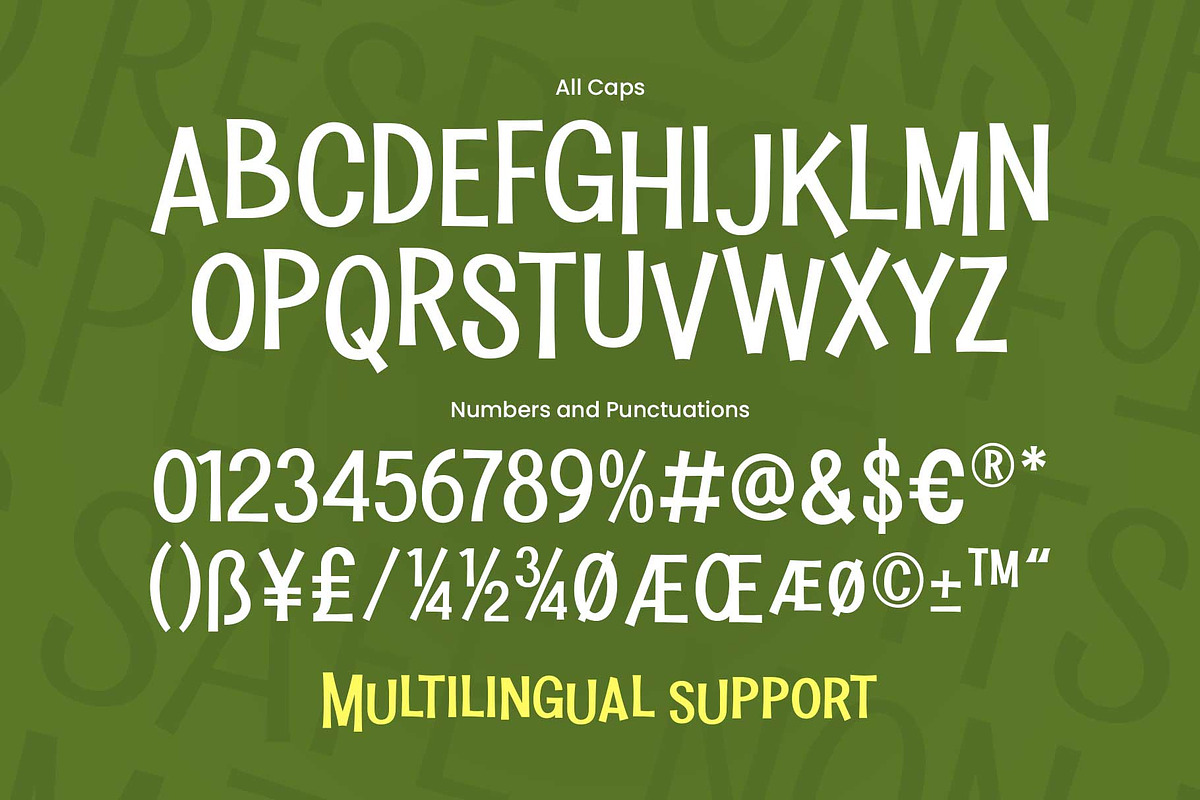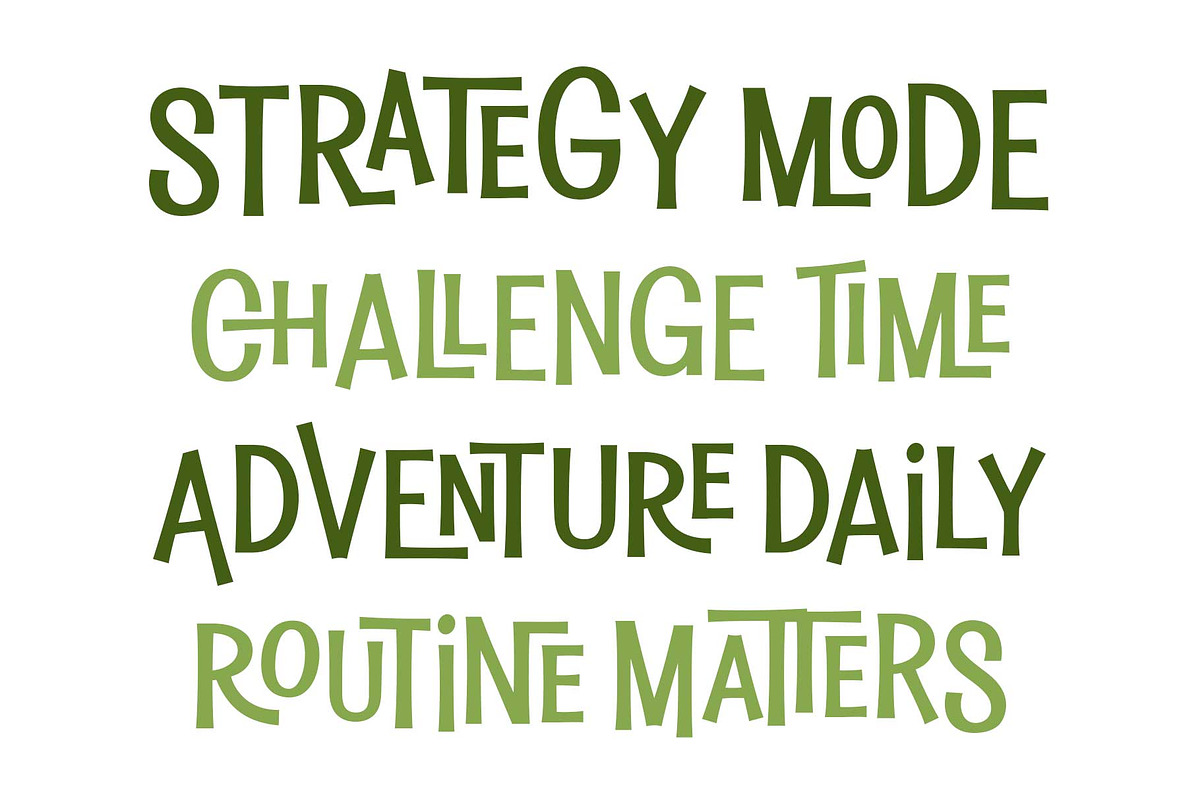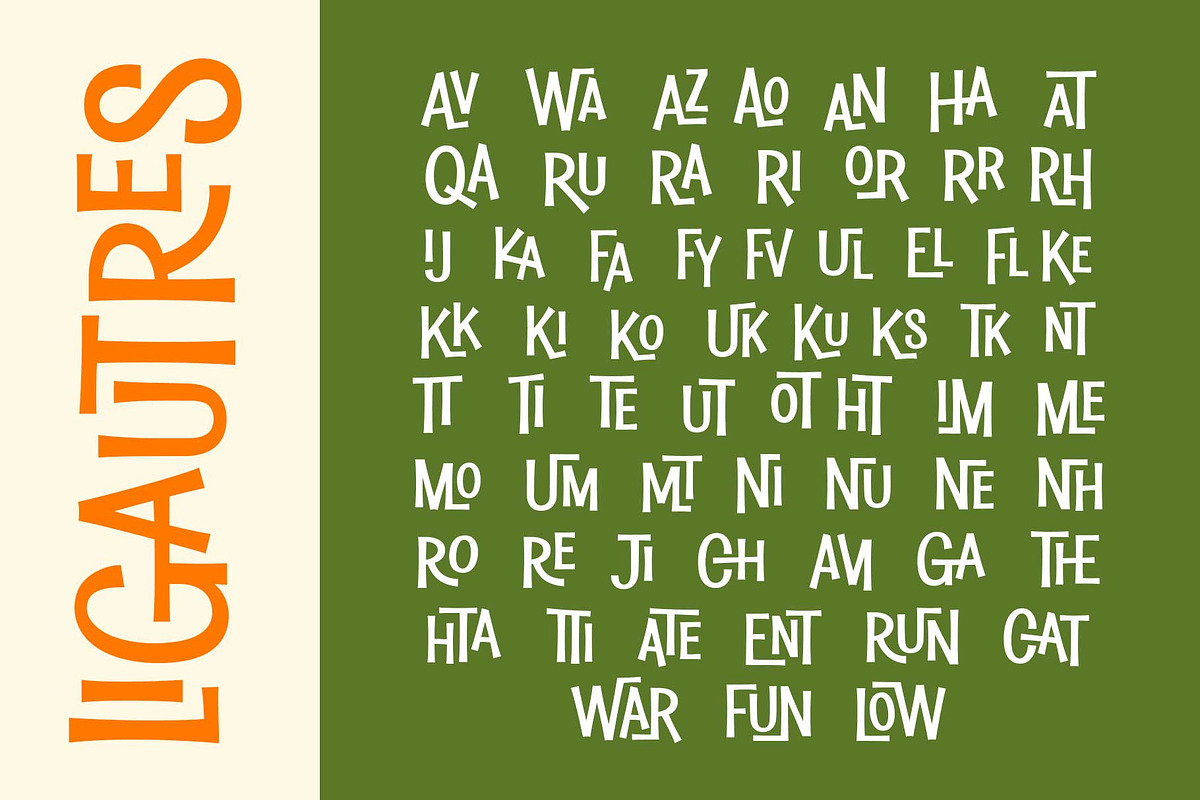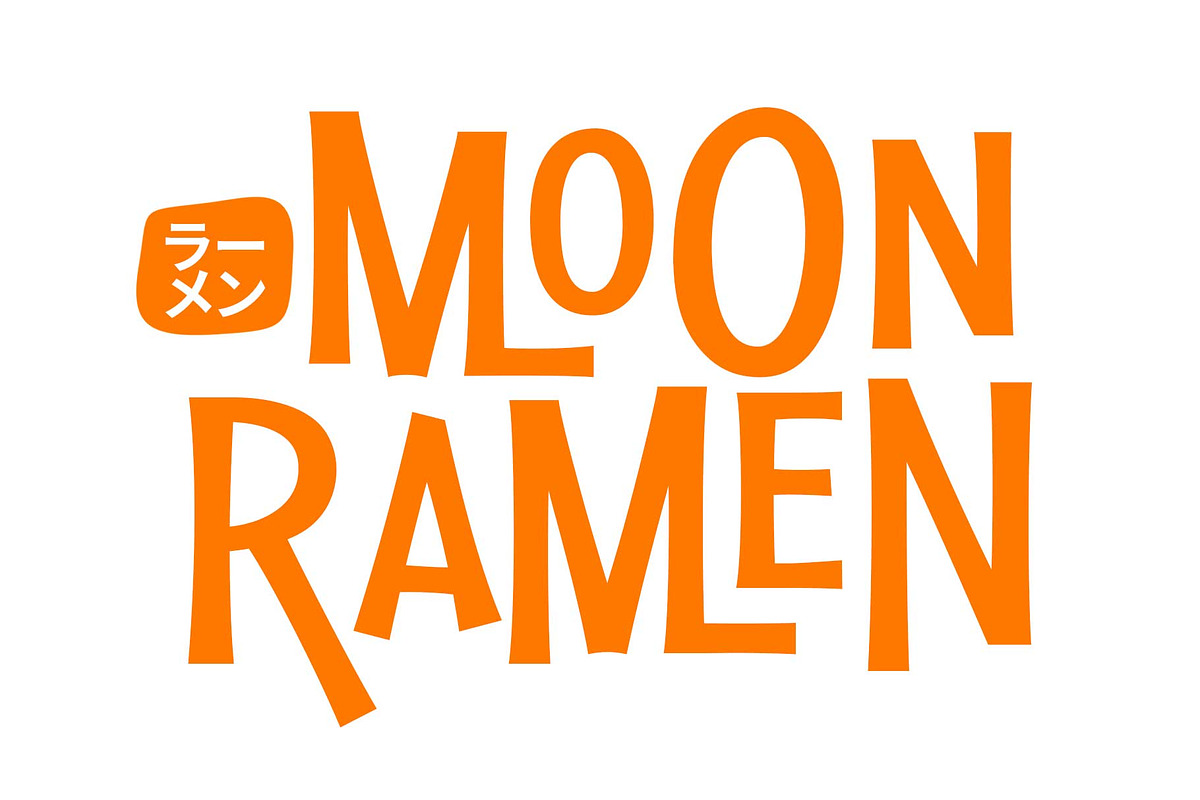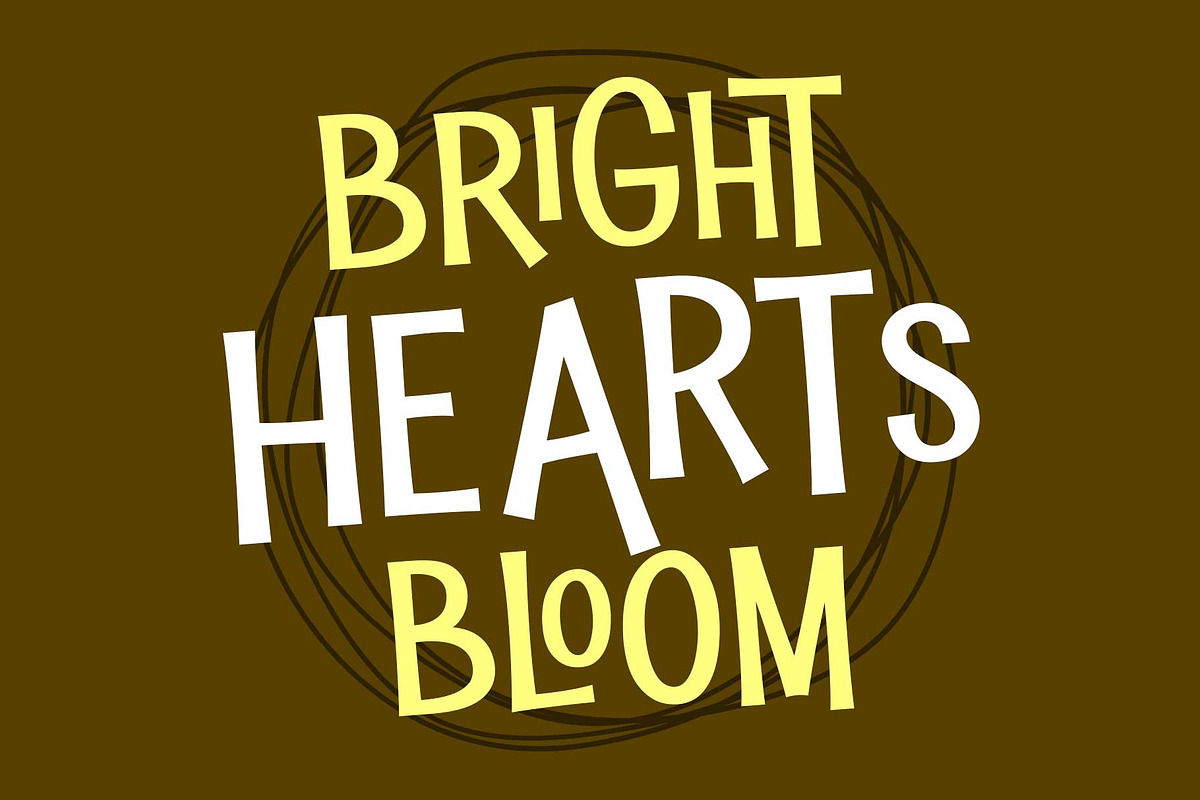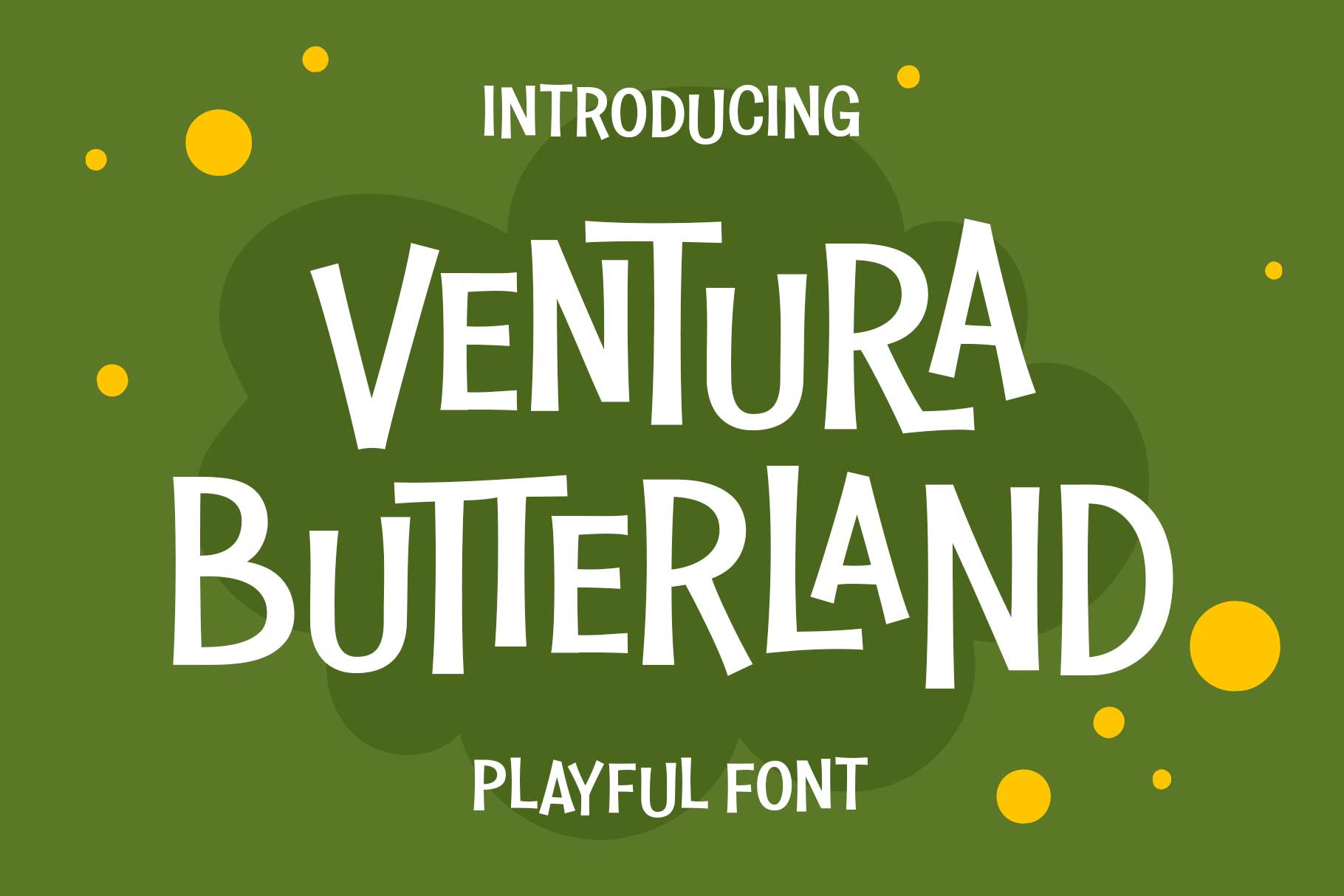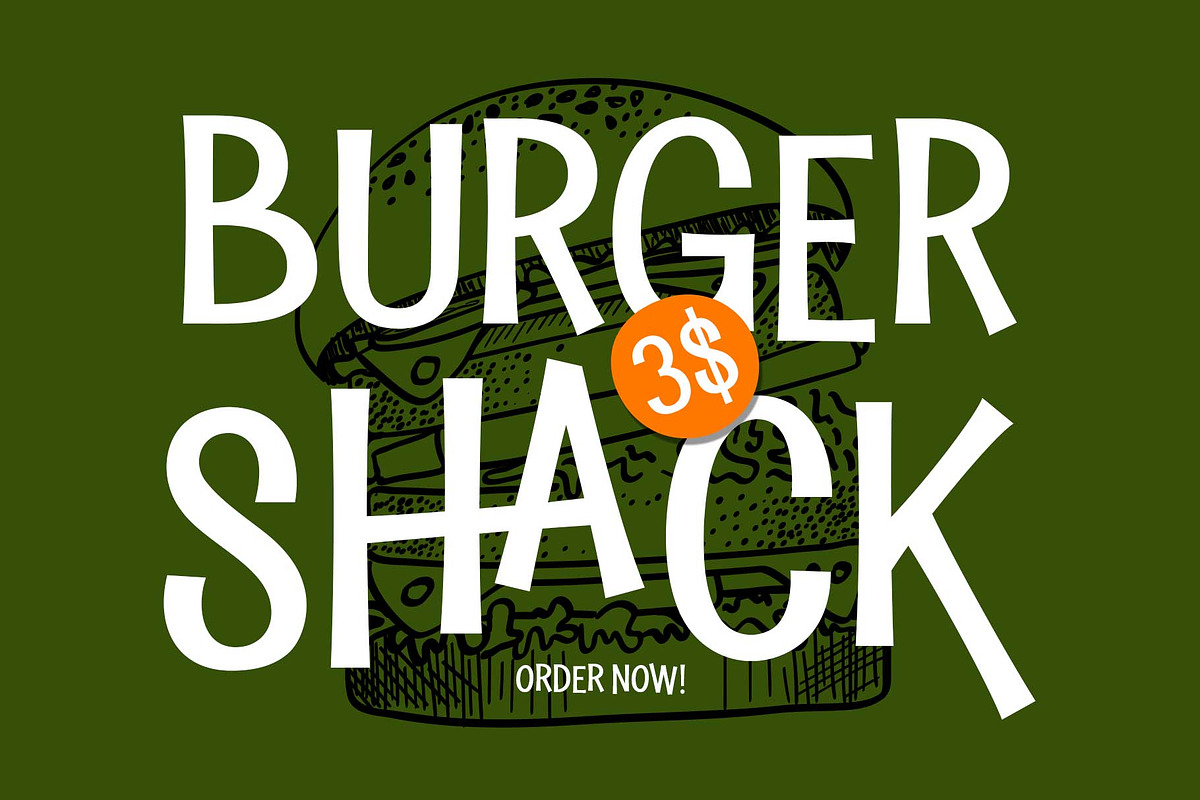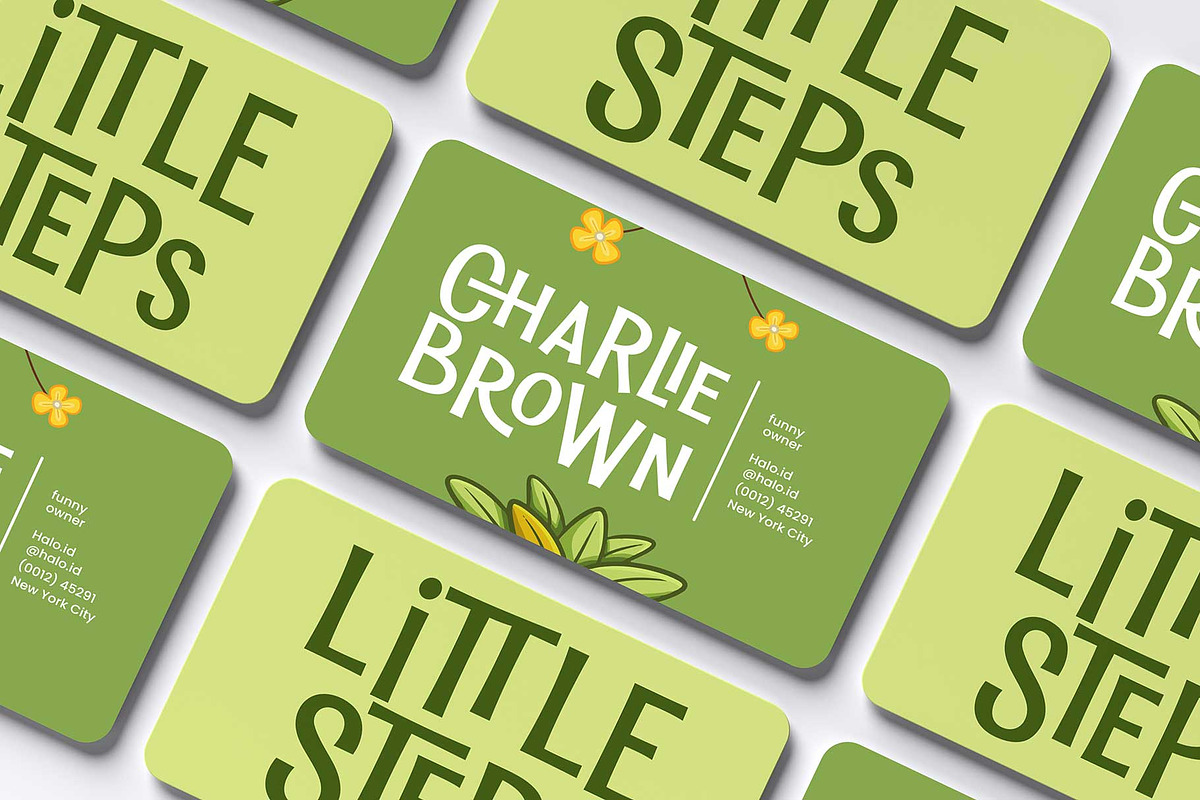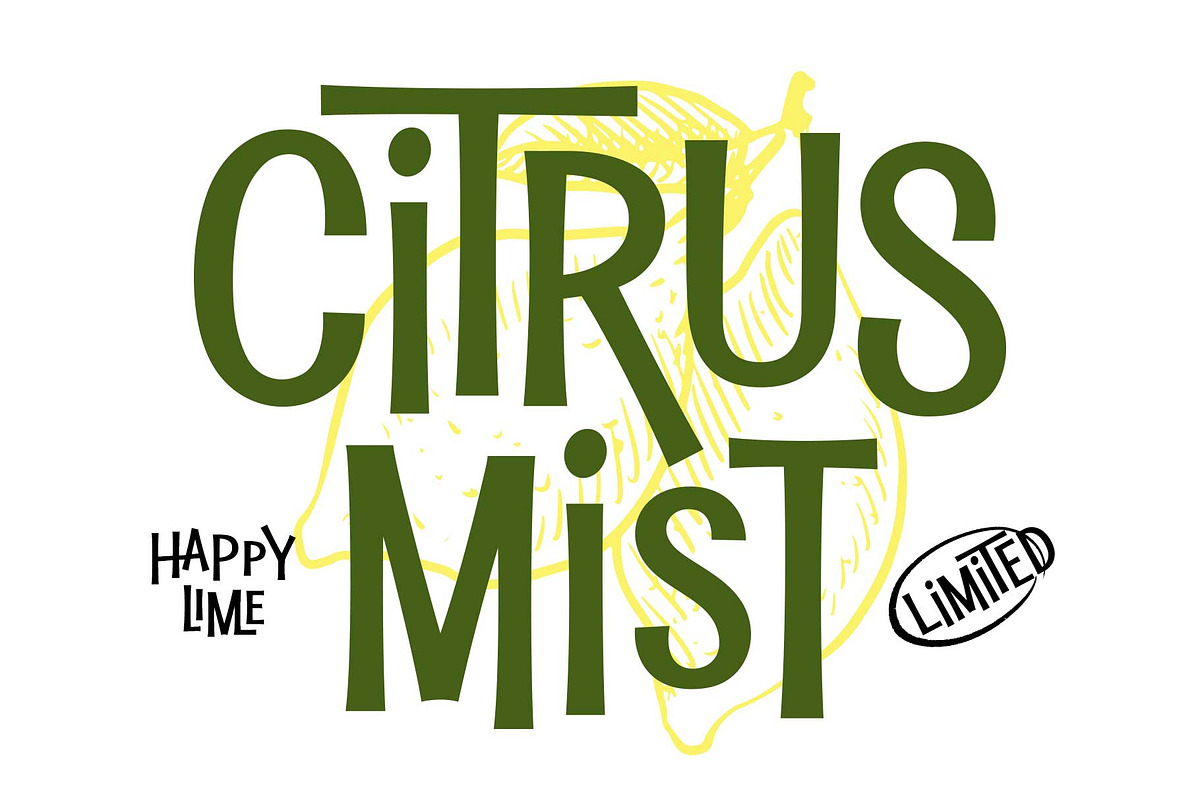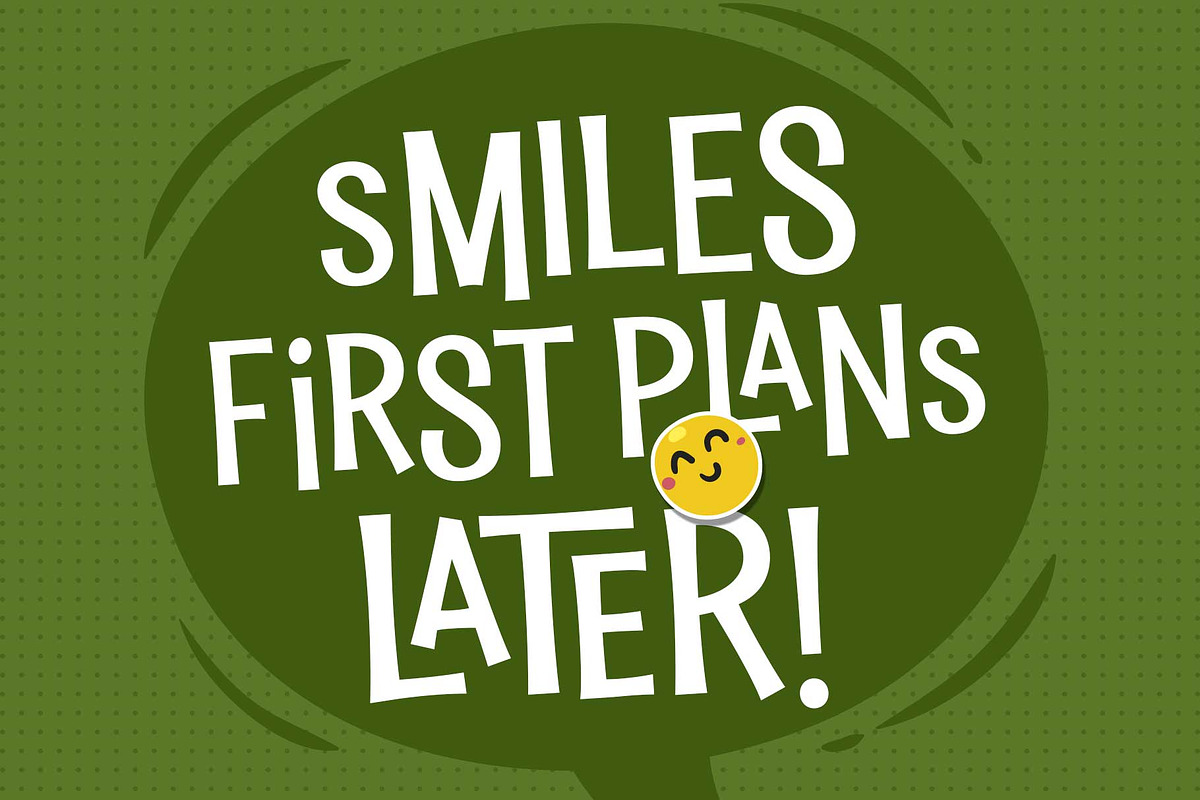
Joyful Font - Ventura Butterland
Ventura Butterland is a playful display font available in Regular and Bold, featuring bouncy letterforms and friendly curves. It’s ideal for branding, logos, posters, social media, food packaging, coffee shops, and playful creative projects.
With 70+ ligatures, stylistic alternates, and multilingual support, Ventura Butterland keeps text flowing naturally while staying clear and easy to use—perfect for headlines, campaigns, and designs that need a cheerful touch.
- All capital characters set
- Stylistic alternates